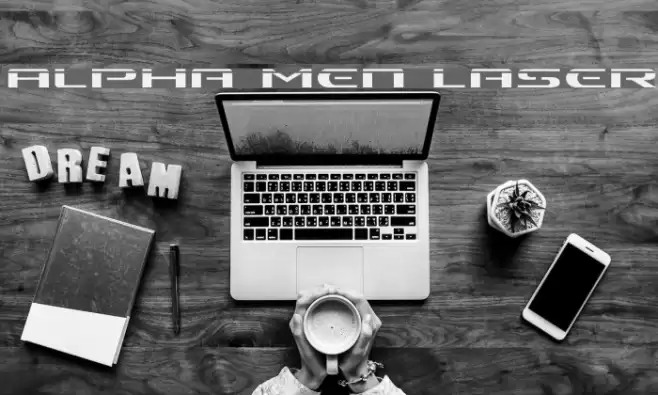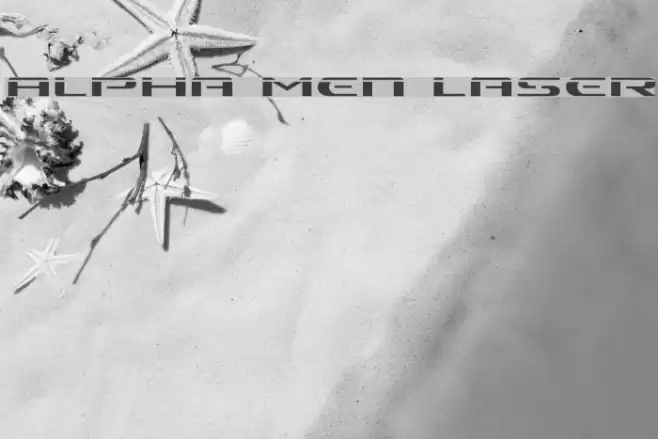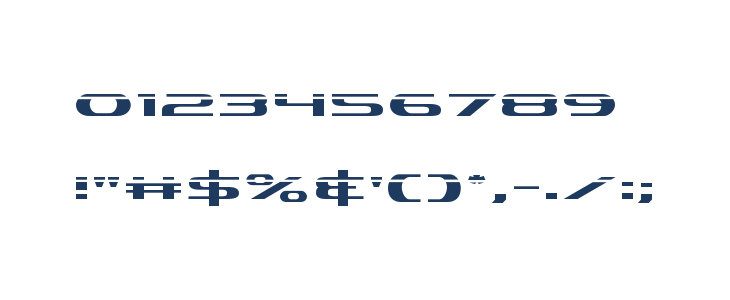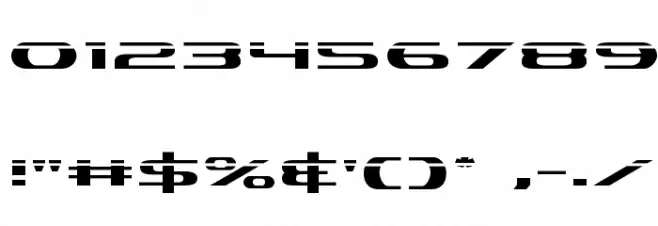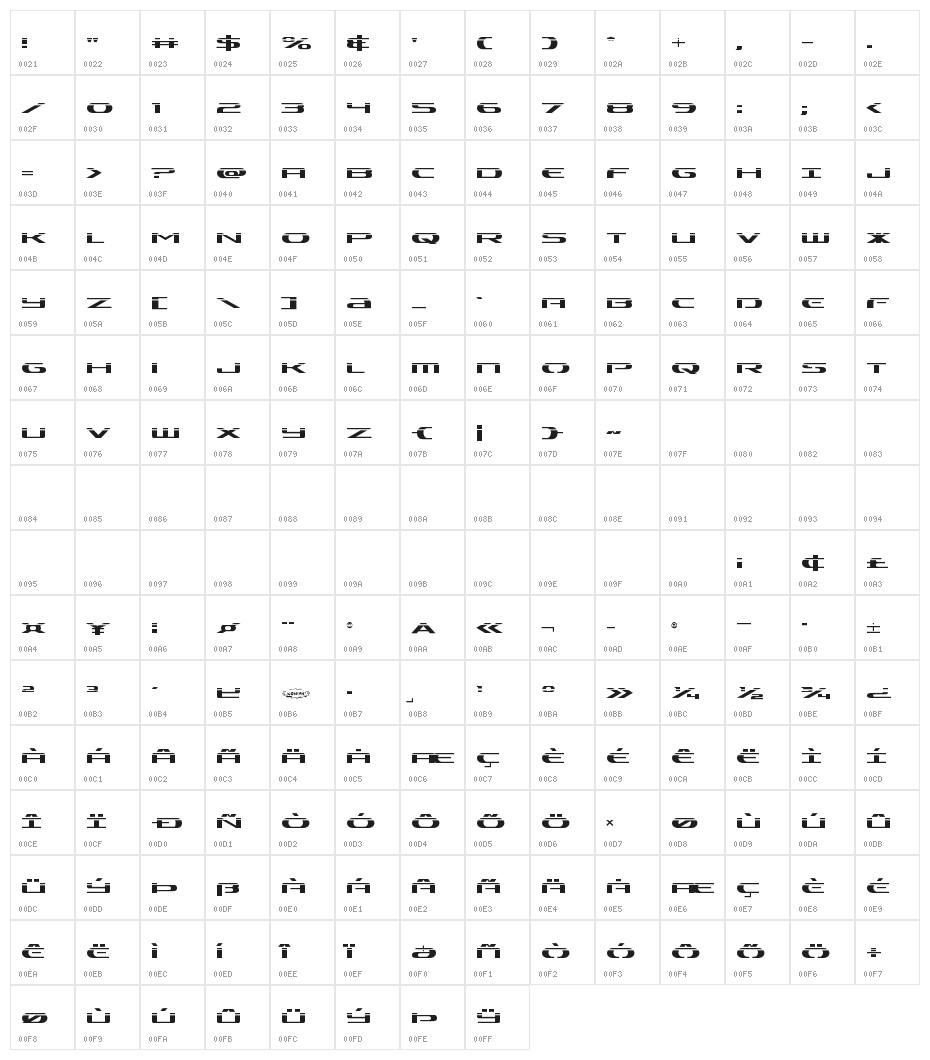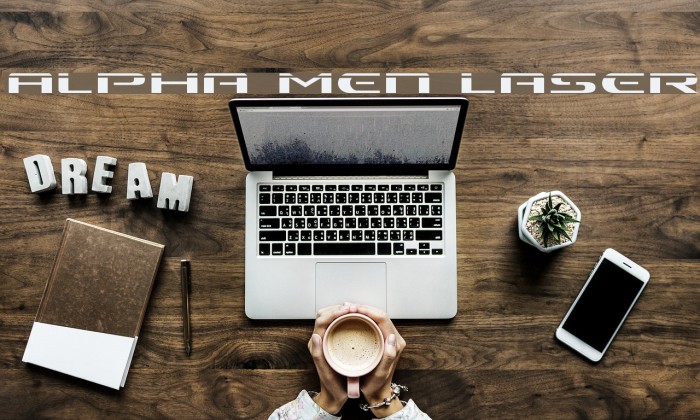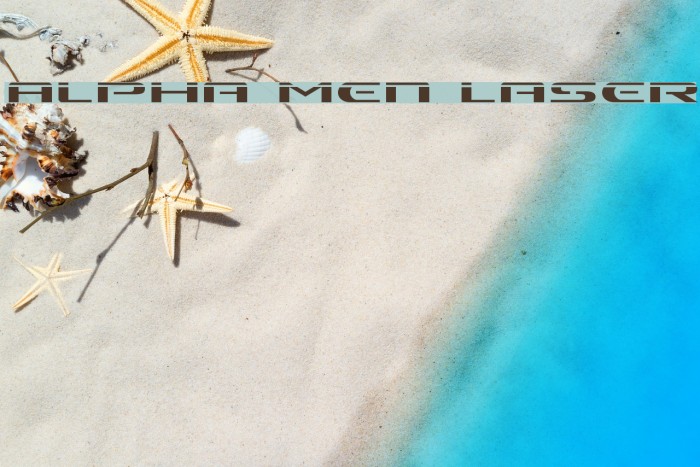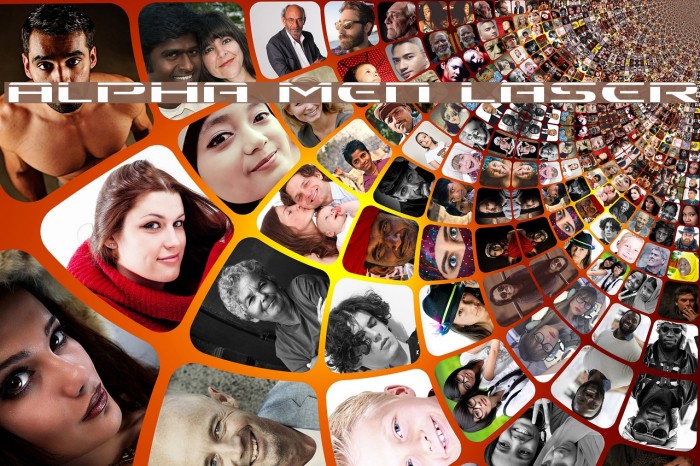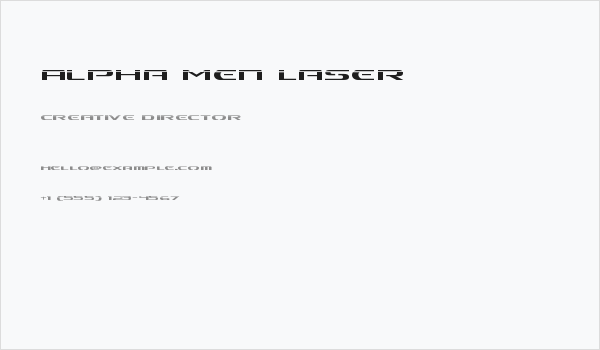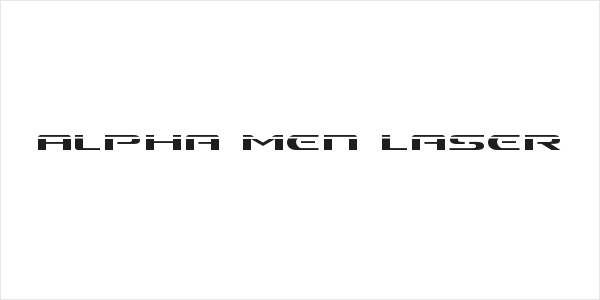
Alpha Men Laser Font
Alpha Men Laser Description
This typeface features a futuristic and bold design with sharp, angular edges and a distinct geometric style. The characters are constructed with a combination of thick and thin strokes, creating a dynamic and high-tech appearance. The uppercase and lowercase letters maintain a consistent style, with unique cutouts and angles that give the font a modern and edgy look. The numbers and special characters follow the same design principles, ensuring a cohesive visual identity across all glyphs. This font's design is reminiscent of sci-fi and digital themes, making it suitable for projects that require a contemporary and innovative aesthetic.
A futuristic, angular typeface with a bold, geometric style from Uncategorized fonts.
- Proposed Projects: Ideal for sci-fi movie posters, tech company branding, video game titles, and futuristic-themed event flyers.